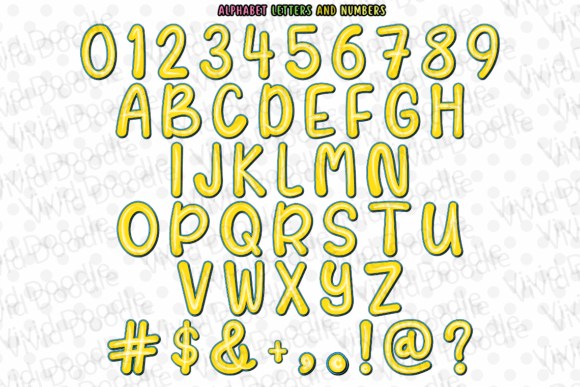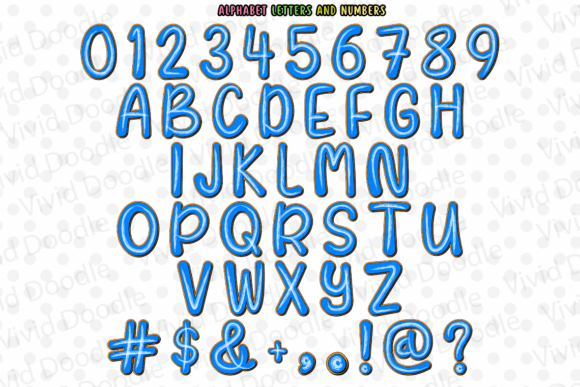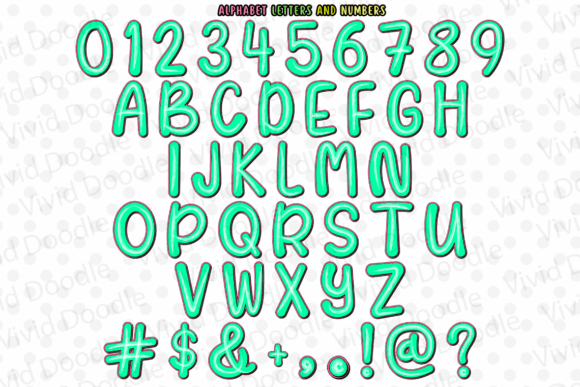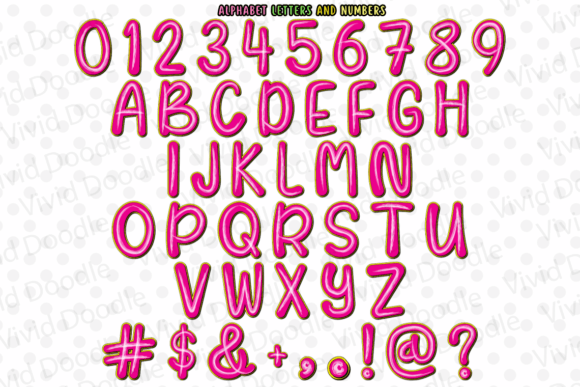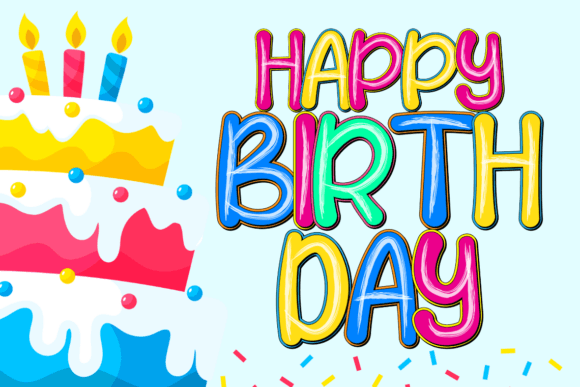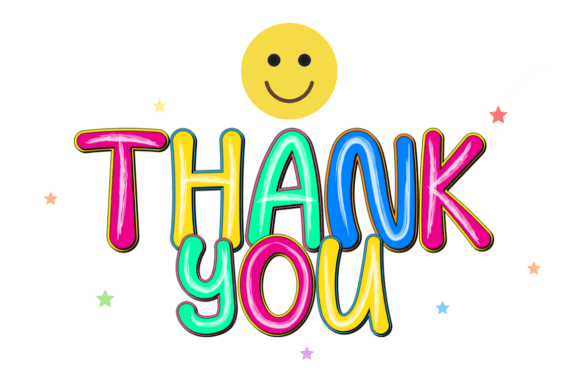
Introduction to Rainbow Dolly Neon Font
Have you ever stumbled upon a font that makes your designs pop with creativity and energy? For designers, finding the perfect font can be a game-changer, especially when working on projects that require a touch of whimsy and fun. Imagine crafting an invitation for a birthday party, and as you add the finishing touches, you need a font that screams celebration. That’s where the Rainbow Dolly Neon Font comes in – a vibrant and eye-catching typeface that’s sure to bring a burst of excitement to your creative project.
This high-quality font is not just a design resource; it’s a tool that can elevate your work and make it stand out. With its playful blend of colors, the Rainbow Dolly Neon Font is perfect for designers looking to add a festive and lively touch to their projects. Whether you’re working on a school project, holiday graphics, or simply want to add some creativity to your designs, this font is a valuable asset to have in your design arsenal.
Key Features of Rainbow Dolly Neon Font
- Unique Blend of Neon and Rainbow Colors: This font offers a vibrant and eye-catching design perfect for creative projects.
- Transparent Background Option: Users can choose to use a transparent background, allowing for seamless integration into various design elements.
- Large Character Set: With over 200 characters, including uppercase and lowercase letters, numbers, and symbols, this font offers a wide range of creative possibilities.
- Perfect for Party and Celebration Themes: The Rainbow Dolly Neon Font is ideal for creating eye-catching graphics, posters, and social media content for party and celebration themes.
Honest Review: Rainbow Dolly Neon Font
- ✨ High quality and vibrant colors that really pop.
- ✨ Easy to read, even in smaller font sizes.
- ✨ Perfect for adding a touch of whimsy to my design.
- ⚠️ Limited font styles and variations.
- ⚠️ Not suitable for formal or professional designs.
- ⚠️ Transparent background doesn’t always translate well to different design elements.
Overall, I’d say the Rainbow Dolly Neon Font is a fun and playful design resource that’s perfect for creative projects. While it may have some limitations, it’s a great option for those looking for a high-quality, free download. Just be sure to use it in the right context!
Getting the Most Out of Rainbow Dolly Neon Font
To get the most out of the Rainbow Dolly Neon Font, use it in creative projects that require a high-quality, eye-catching design. This font is perfect for social media graphics, posters, flyers, and other visual content. You can also use it to add a touch of personality to your blog or website.
The Rainbow Dolly Neon Font is ideal for:
- Blog and website design
- Party invitations and decorations
- Other creative projects that require a fun and playful design